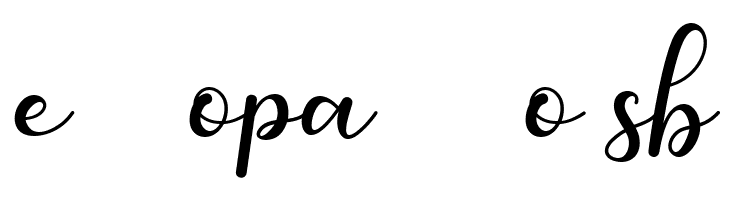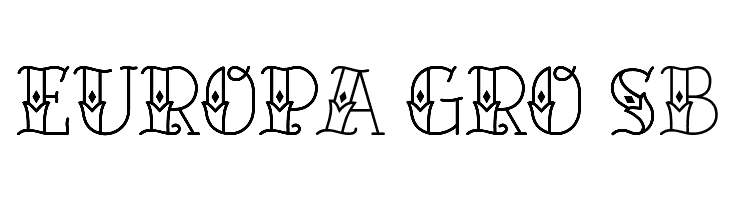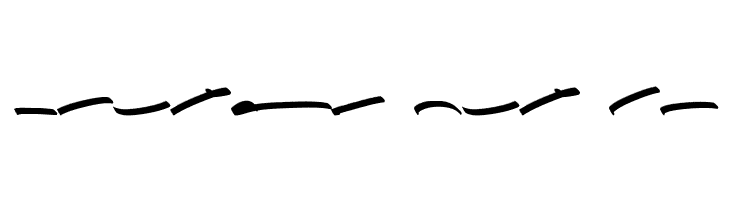
A romantic and whimsical script font with elegant curves and playful accents.
A playful, bold font with circular shapes and dot accents.
An ornate, decorative font with high contrast and diamond-like accents.
Dynamic, flowing swash lines with a bold, hand-drawn appearance.
A playful, snowflake-accented font with rounded, bold characters.
A whimsical script font with star accents, perfect for playful designs.
A playful, heart-accented font with bold, rounded characters and a hand-drawn style.
A playful, decorative font with clover accents and bold, rounded characters.
A festive, decorative script font with sparkling accents and elegant flourishes.
A decorative font with elegant cursive strokes and playful accents.